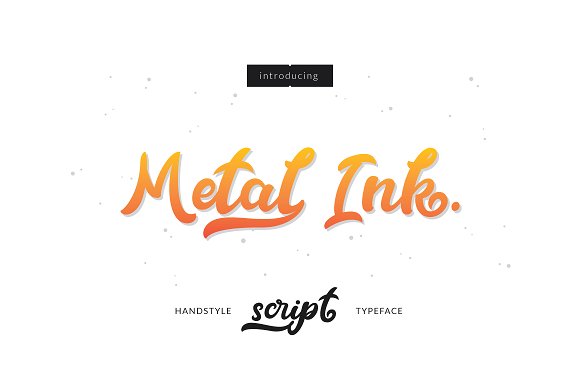
Metal Ink Font
Unleash the Elegance with Metal Ink: A Font That Embraces Your Creativity
In a world of digital expression, your words have the power to leave a lasting impression. Metal Ink, a meticulously crafted script font from the talented foundry Thirtypath, is your key to unlocking the door to unforgettable lettering designs. With its graceful curves and elegant strokes, Metal Ink transcends the ordinary, inviting you on a journey of creativity and self-expression.
Imagine your designs adorned with the charm of Metal Ink. Its clean and fluid lines bring an air of sophistication to your projects, whether you're creating logos, invitations, social media graphics, or any other digital masterpiece. Each letter flows effortlessly into the next, creating a cohesive and visually stunning aesthetic that captures the eye and captivates the heart.
Step into a world where your creativity knows no bounds. Metal Ink's versatile nature makes it the perfect choice for a wide range of design styles and projects. Its delicate strokes add a touch of whimsy to playful designs, while its strong character adds a touch of authority to more formal projects. With Metal Ink, you have the power to create designs that resonate with your unique style and vision.
But Metal Ink is more than just a beautiful font; it's an experience. Its smooth, handwritten texture invites you to connect with your inner artist and explore the depths of your creativity. Each stroke of the pen is a testament to the passion and dedication of its creator, Thirtypath, ensuring that your designs exude a touch of authenticity and soul.
So why settle for ordinary fonts when you can embrace the extraordinary with Metal Ink? Its captivating beauty, versatility, and boundless creative potential make it the ultimate choice for designers seeking to elevate their work to new heights. Join the ranks of those who have discovered the magic of Metal Ink and unlock the true power of your creativity.